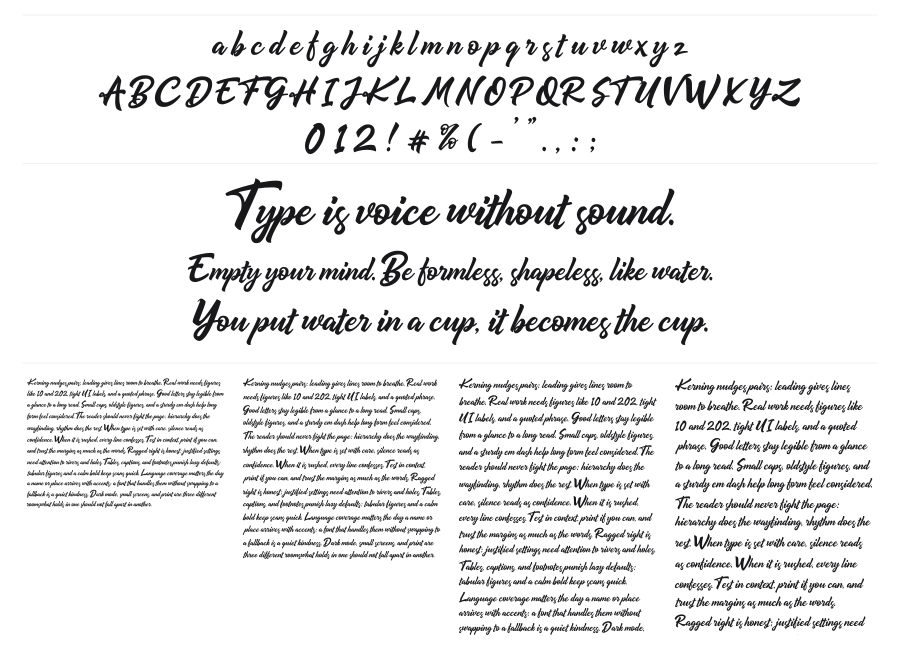
Qrayolla
Qrayolla is a bold brush script with strong stroke contrast and an energetic, connected flow. The letters lean forward with lively strokes that mimic real brush-pen lettering, giving it an authentic handcrafted feel. It works especially well for logos, packaging, and any branding that needs personality without feeling precious.